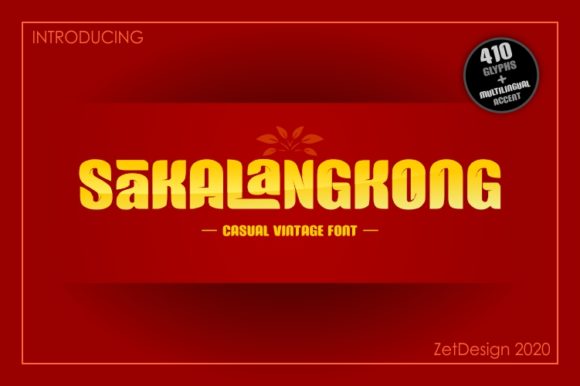
Unleash the beauty of your designs with Sakalangkong, the bold and captivating decorative font. A masterpiece crafted by ZetDesign, Sakalangkong is a visual symphony that will transform your creative projects into breathtaking realities.
Immerse yourself in the world of fine print with Sakalangkong, a font that commands attention with its intricate details and elegant lines. Whether you're designing logos, posters, invitations, or any other visual masterpiece, Sakalangkong will add a touch of sophistication and charm that will leave your audience spellbound.
Journey beyond the ordinary and embrace the extraordinary with Sakalangkong. Its versatility knows no bounds, effortlessly adapting to a myriad of creative endeavors. From web designs that captivate and engage to print projects that exude timeless elegance, Sakalangkong is the perfect companion for designers seeking to make a lasting impression.
With Sakalangkong, your imagination becomes the limit. Dive into the realm of moving images and let Sakalangkong bring your animations to life with its dynamic and expressive character. Whether it's a captivating website banner, an unforgettable social media post, or a mesmerizing video, Sakalangkong will elevate your visuals to new heights.
Step into the spotlight and let Sakalangkong be your creative champion. Its bold presence and undeniable charm will make your designs shine brighter than ever before. Stand out from the crowd and showcase your individuality with a font that speaks volumes.